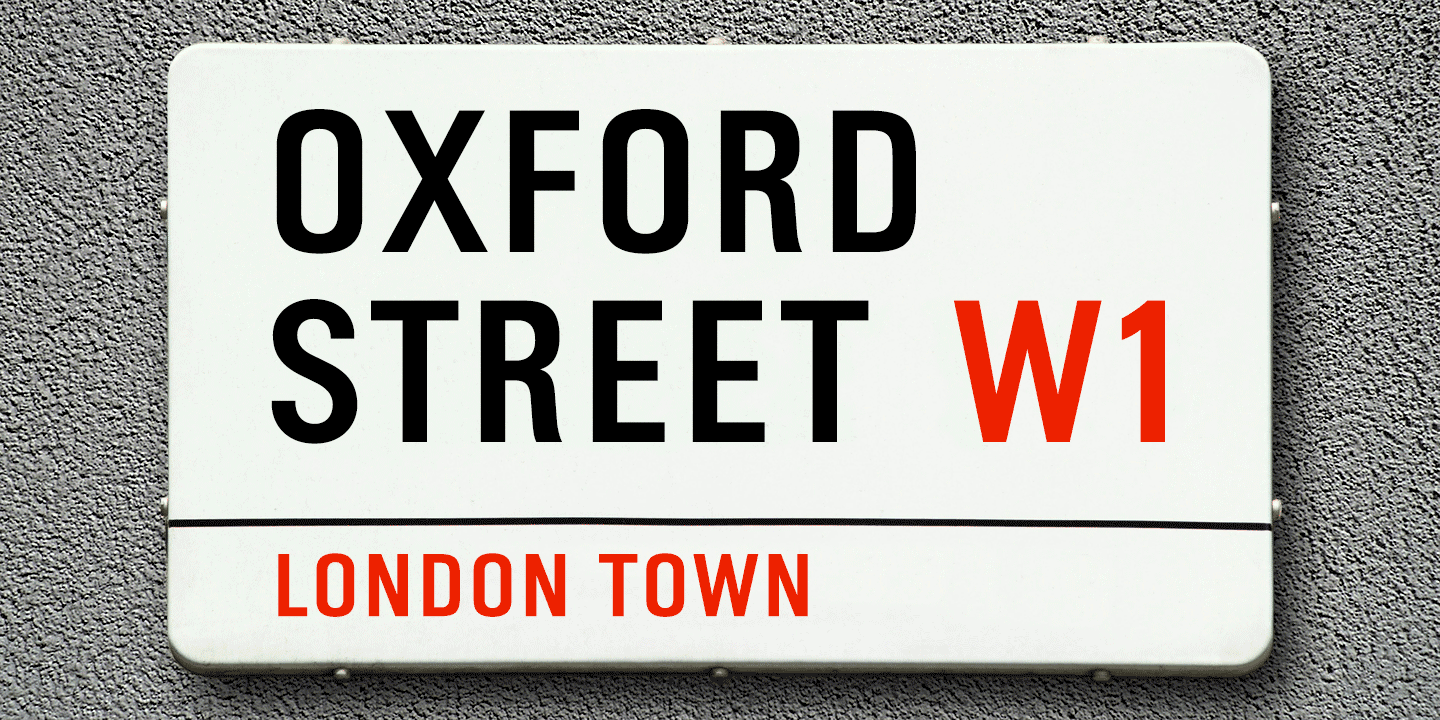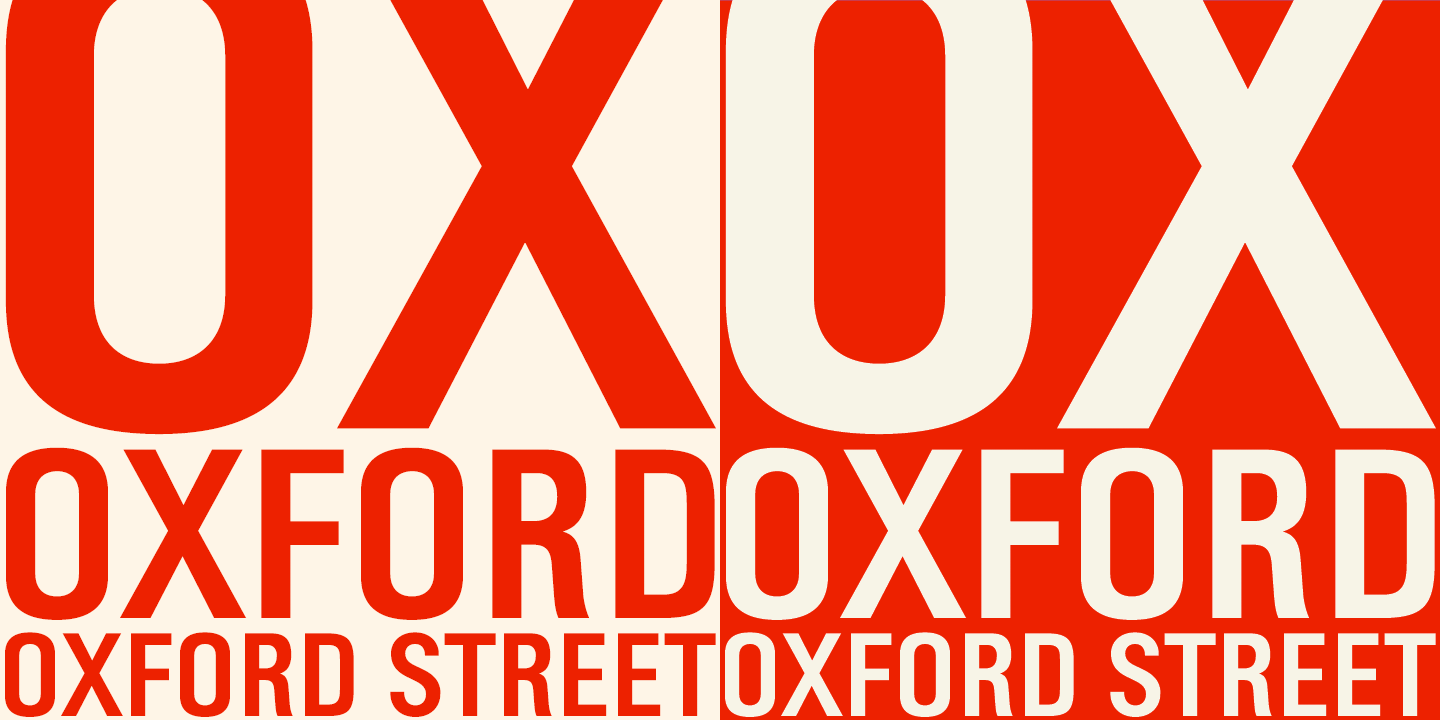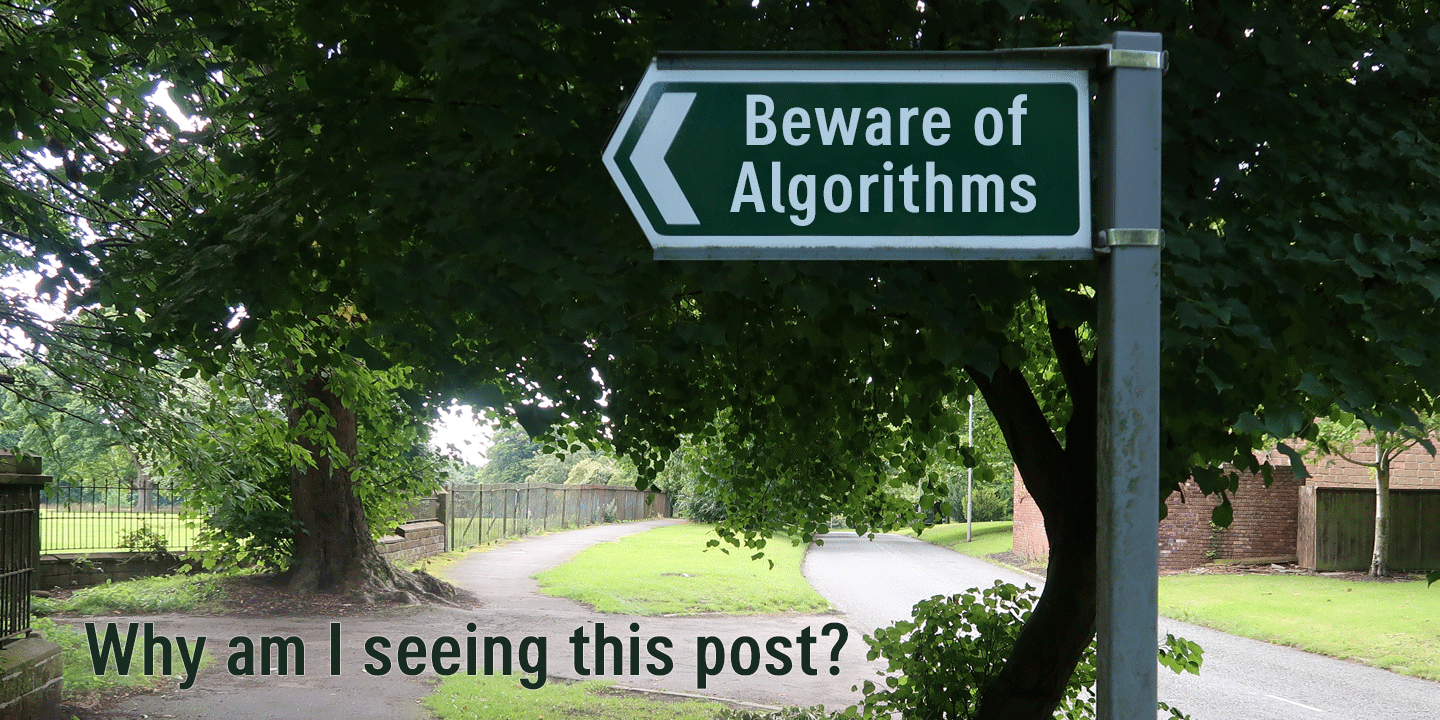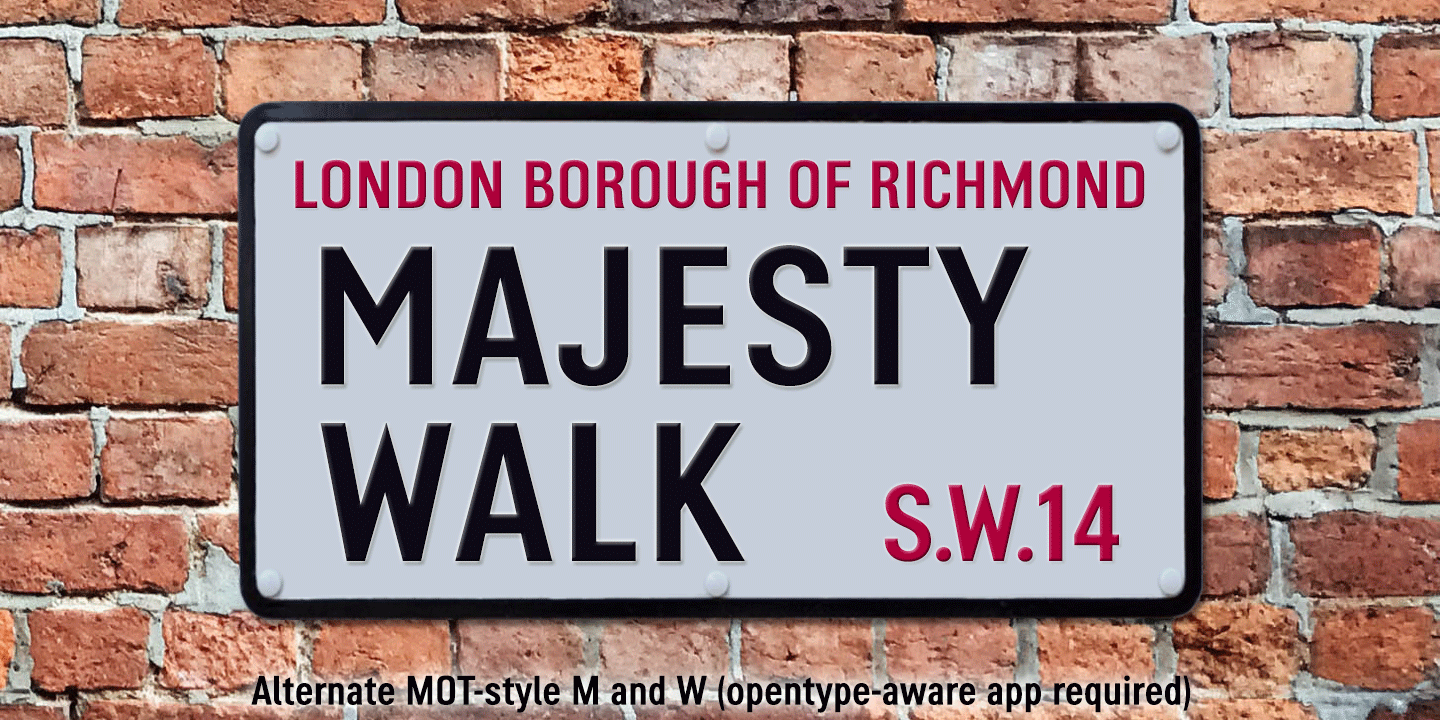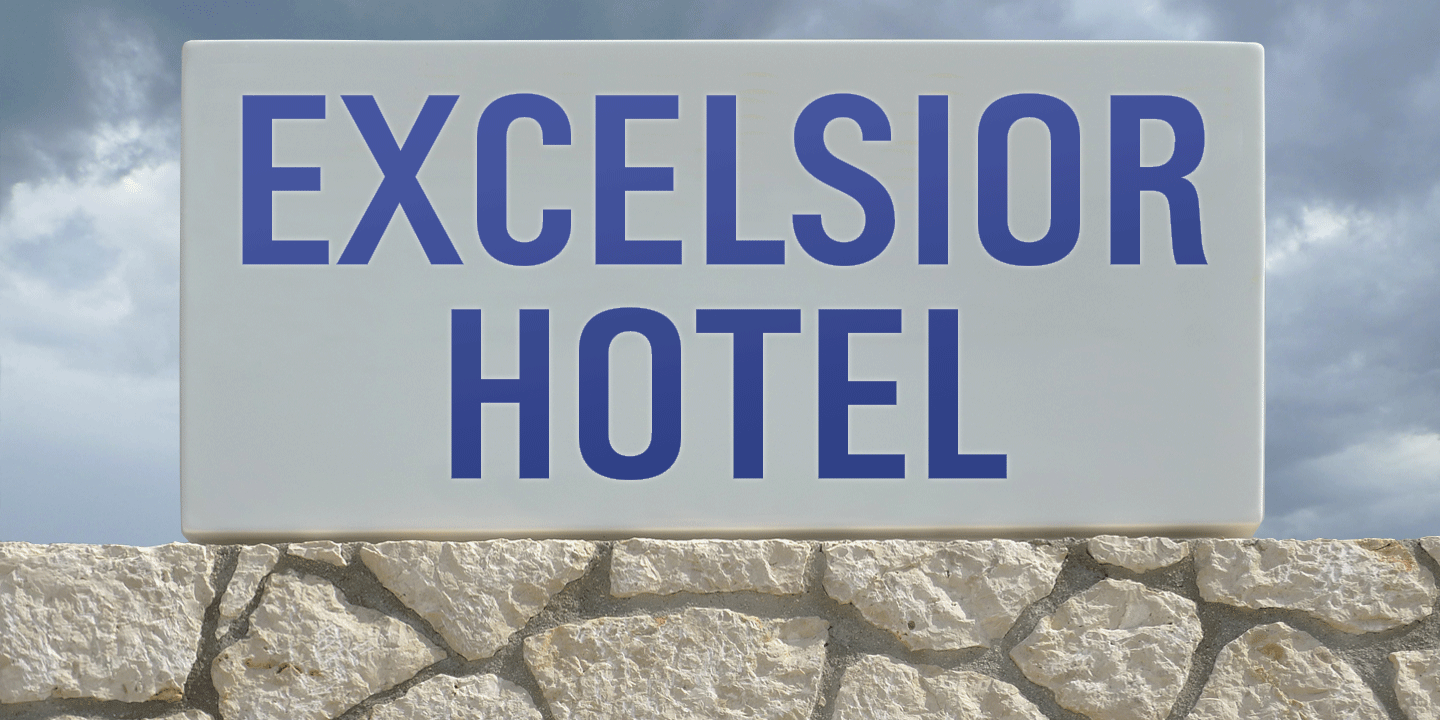
About Oxford Street
Oxford Street is a signage font that began as a redrawing of the capital letters used for street nameplates in the borough of Westminster in Central London. The nameplates were designed in 1967 by the Design Research Unit using custom lettering based…